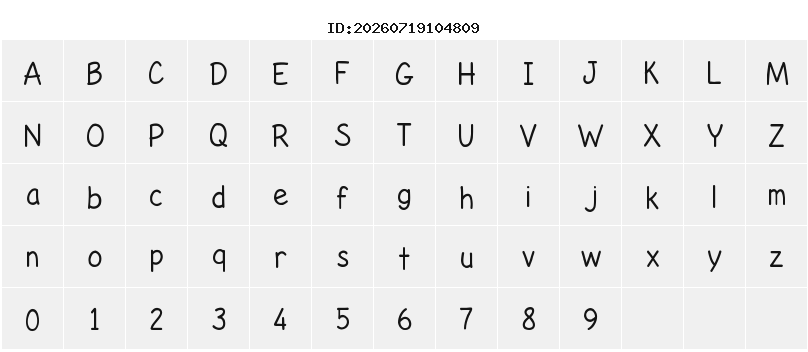
• Font Name: YEFONTRunYuanTi 標準
• Full Font Name: 也字工厂润圆体 标准
• Character Count: 7148
• Manufacturer: 也字工厂
About YEFONTRunYuanTi 標準.TTF
YEFONTRunYuanTi 標準.TTF is a modern, elegant sans-serif font designed for ultimate readability and visual harmony. Perfect for branding, headlines, web design, and print materials.